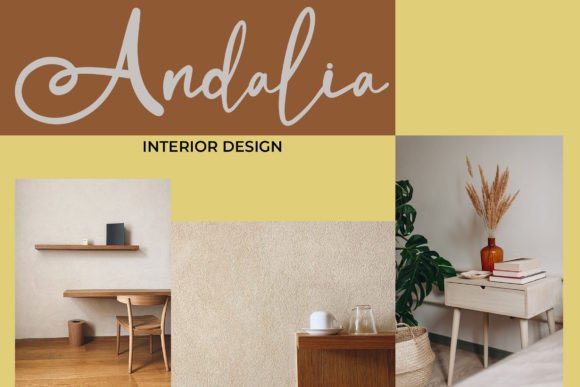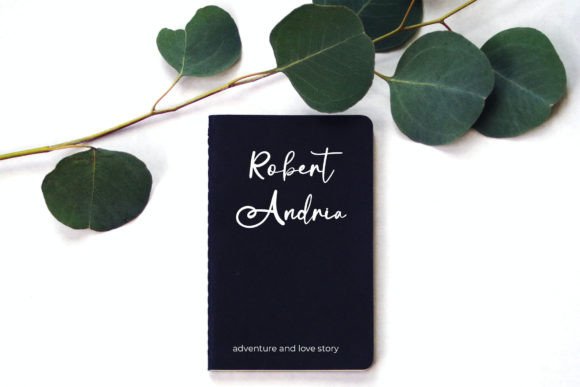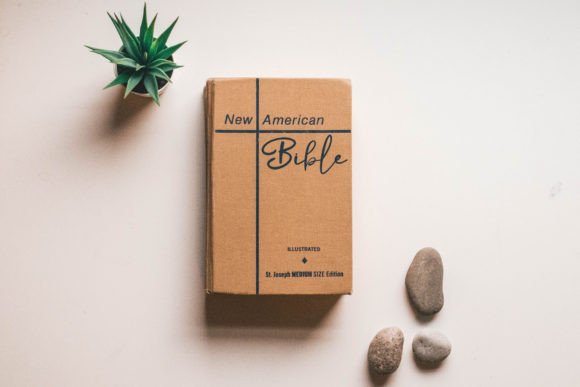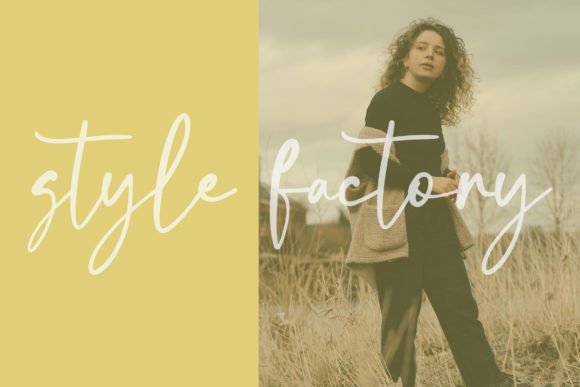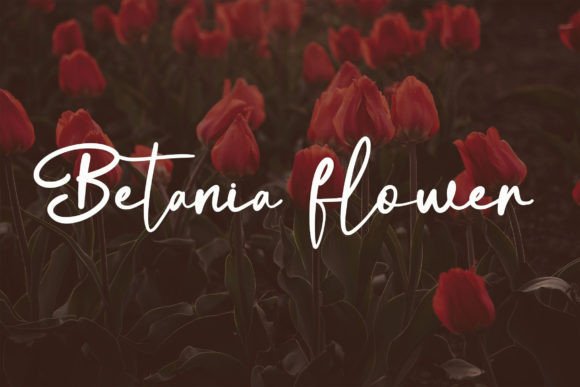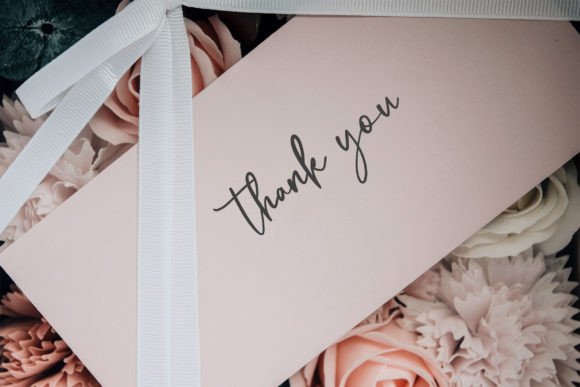
Discover the Elegance of Antellove Font
Have you ever found yourself stuck in a creative rut, searching for the perfect font to elevate your project? I know I have. It’s that moment when everything else seems perfect, but the typography just doesn’t quite fit. That’s when I stumbled upon the charming Antellove Font, and my design world was forever changed.
With its unique and beautifully crafted characters, Antellove Font embodies a feminine style that’s perfect for adding a touch of elegance to your designs. Whether you’re working on a wedding invitation, a fashion brand, or a lifestyle blog, this font is sure to bring a sense of sophistication and refinement to your project.
As a designer, you know how valuable it is to have a versatile font that can adapt to any style or theme. That’s exactly what the Antellove Font offers, making it a must-have addition to your design toolkit.
Antellove Font Key Features
- Font Family: Antellove Font is a unique, modern script font designed to add a touch of elegance to any design.
- Font Size: 1,024 glyphs, providing an extensive character set for various languages and applications.
- Unique Characteristics: The Antellove Font features a distinctive, flowing script style with intricate details and subtle flourishes, making it ideal for creative projects and branding.
Designer Review: Antellove Font
Overall, I have mixed feelings about the Antellove Font. On one hand, it has some unique characteristics that can make it stand out in certain designs. ✨ Its organic, hand-drawn feel can add a touch of whimsy and personality to a project. I also appreciate the multiple weight options, which provide flexibility for designers to experiment with different font styles.
The font’s irregularities can be both a blessing and a curse. ✨ In some cases, its imperfections can create a sense of authenticity and human touch, but in others, they may come across as sloppy or unprofessional. It’s essential to use this font judiciously and consider the project’s context and target audience.
Here are some specific pros and cons of the Antellove Font:
- ✨ Unique, hand-drawn feel
- ✨ Multiple weight options
- ⚠️ Irregularities can be inconsistent
- ⚠️ May not be suitable for formal or corporate designs
Overall, I think the Antellove Font is a good choice for designers who want to add a touch of personality to their projects. However, it’s crucial to use it thoughtfully and consider its potential limitations.
Getting the Most Out of Antellove Font
For the best results, use Antellove Font in conjunction with bold or italic styles to create visual emphasis. You can also experiment with different font sizes and colors to add depth and interest to your text.
Antellove Font is ideal for creative projects, such as:
Alternatives to Antellove Font
The Great Vibes Font is a beautiful, elegant script font perfect for creating a romantic and whimsical feel in designs. It’s ideal for wedding invitations, greeting cards, and other creative projects.
Comparison to Antellove Font: While both fonts have a similar elegant and romantic feel, Great Vibes Font has a more refined and sophisticated look, making it suitable for high-end designs.
Carolyna Pro Font is a modern, elegant script font with a touch of sophistication. It’s perfect for creating a luxurious and refined feel in designs, making it ideal for branding, advertising, and editorial projects.
Comparison to Antellove Font: Carolyna Pro Font has a more modern and sleek look compared to Antellove Font, making it suitable for contemporary designs.
Alex Brush Font is a beautiful, elegant script font with a touch of playfulness. It’s perfect for creating a warm and inviting feel in designs, making it ideal for creative projects such as book covers, posters, and magazine layouts.